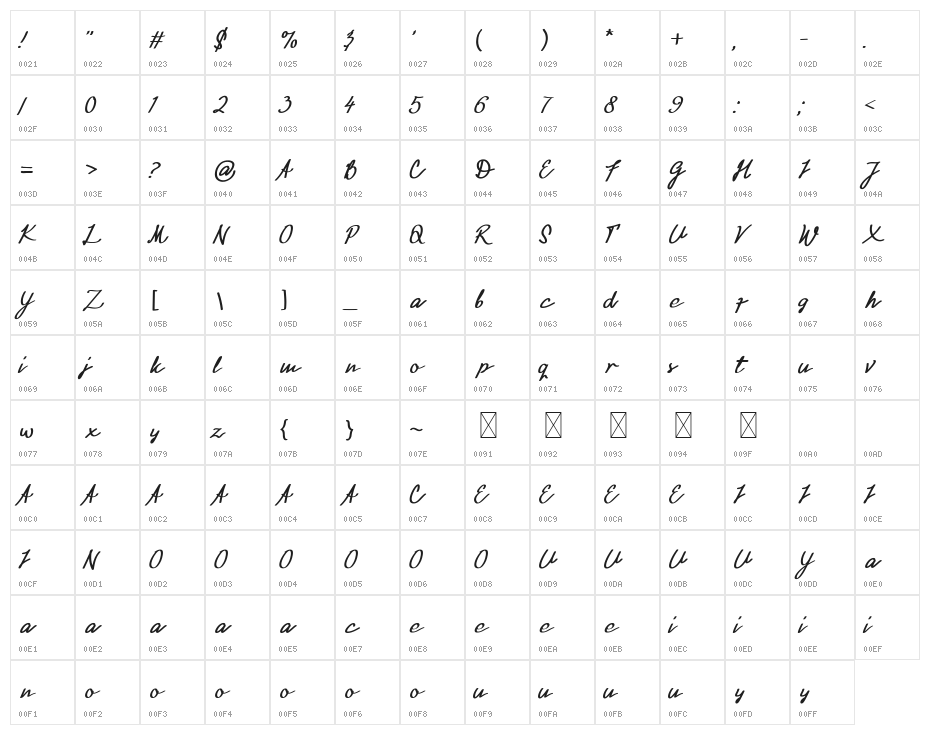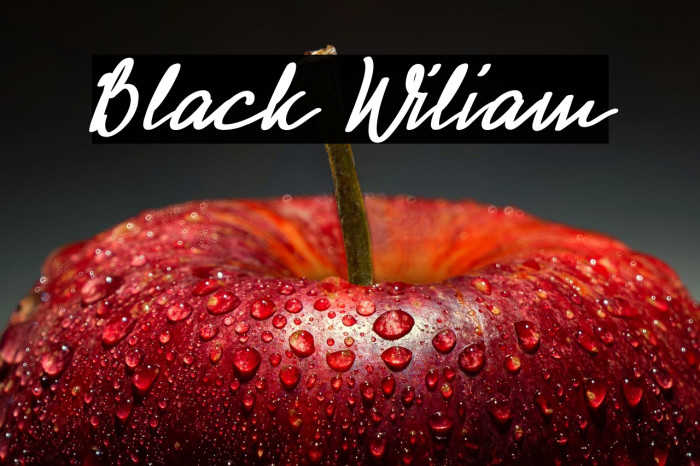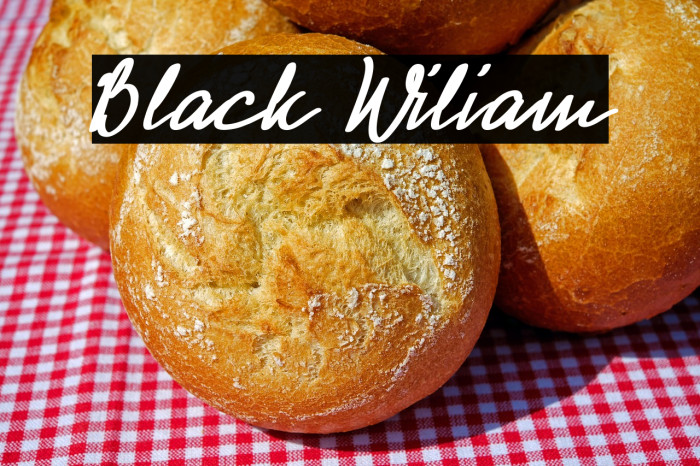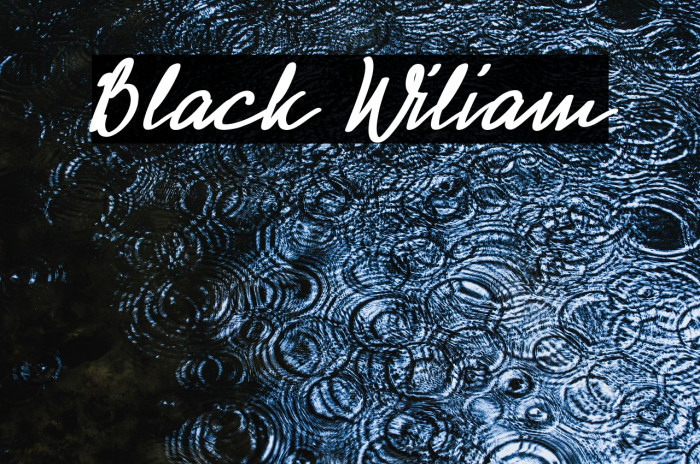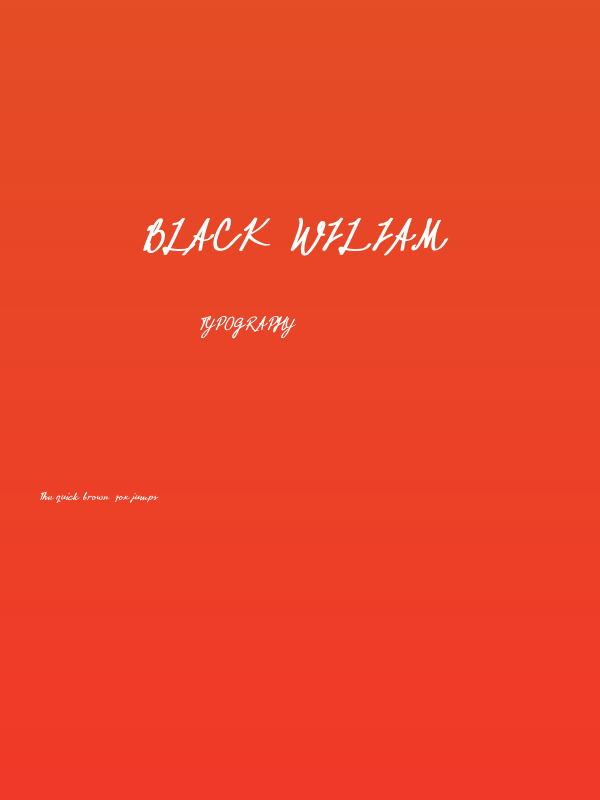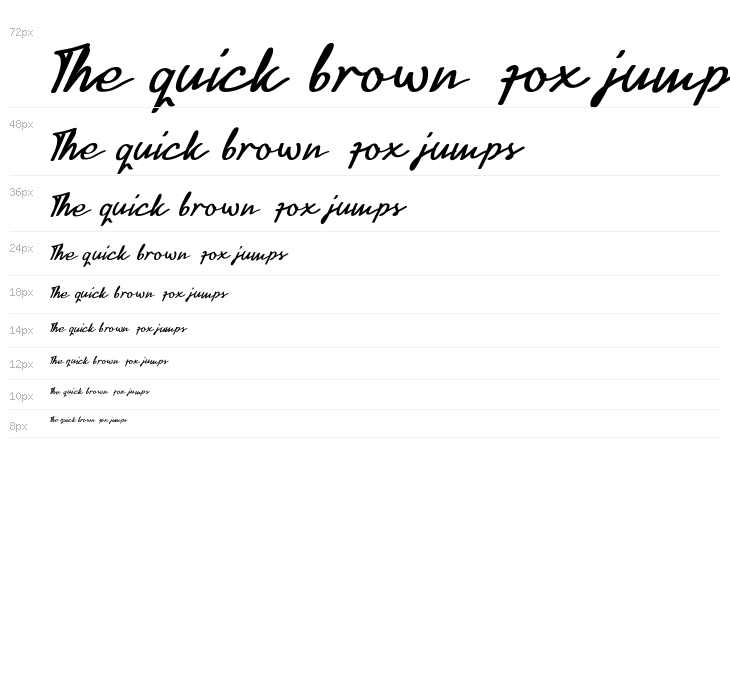
Black Wiliam Font
Black Wiliam Description
This font exhibits a dynamic and fluid script style, characterized by its elegant and flowing letterforms. The uppercase letters are bold and expressive, with a slight slant that adds a sense of motion and sophistication. The lowercase letters maintain a consistent style, with smooth curves and a connected script that enhances readability. The numerals are distinct and well-integrated into the overall design, providing a cohesive look. Special characters are thoughtfully designed to match the script's aesthetic, making this font versatile for various applications.
| Use Case | Logos, Invitations, Artistic Projects |
| Proposed Projects | Ideal for wedding invitations, elegant branding, personal signatures, and artistic projects requiring a touch of sophistication. |